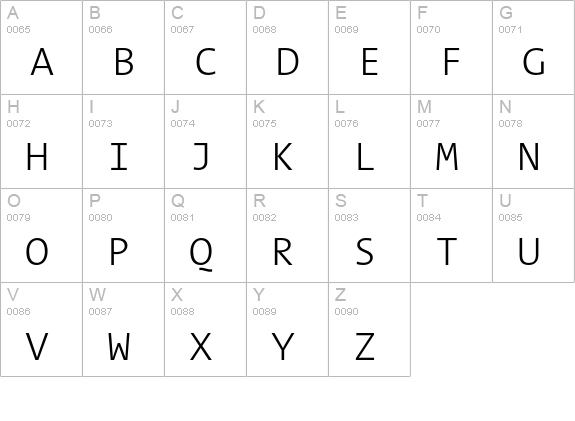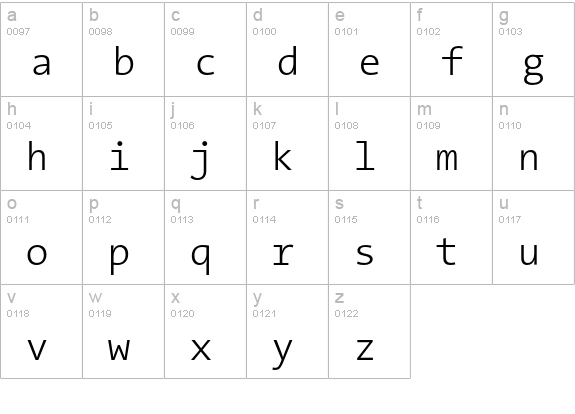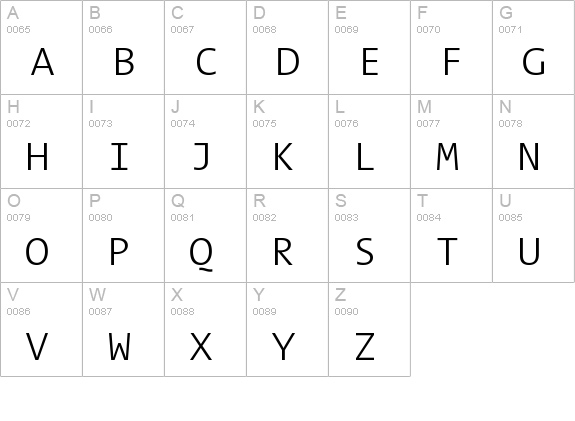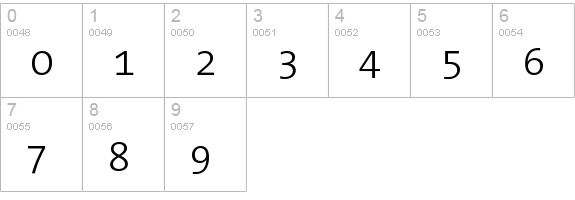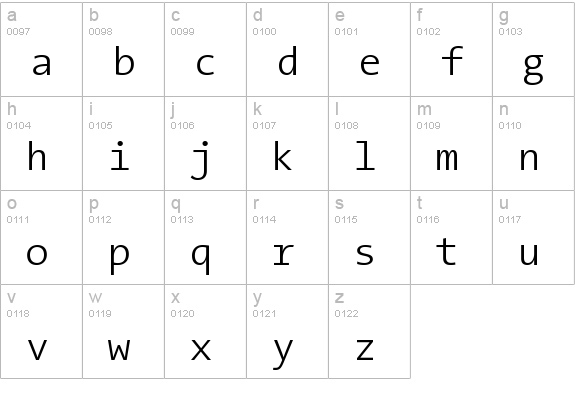
TheSansMono Light is a refined, elegant variant in the TheSansMono typeface family \xE2\x80\x94 well suited to elegant body text, refined sub-headings, and luxury branding.
TheSansMono Light font is a versatile and elegant typeface that exudes a sense of clarity and sophistication. With its clean and minimalistic design, this font is perfect for a wide range of applications, from coding and programming to graphic design and typography. TheSansMono Light font offers a harmonious balance between legibility and style, making it easy on the eyes while still maintaining a distinctive aesthetic appeal. Its sleek and slender letterforms create a modern and refined look, making it a popular choice among designers and developers alike. One of the best things about TheSansMono Light font is that it is free! That's right, you can freely download this amazing font at FontsMarket.com. With its availability as a free download, you can enhance your creative projects without having to worry about any financial constraints. Whether you're working on a personal project or a professional assignment, TheSansMono Light font provides the versatility and flexibility you need. Its clean lines and clear spacing make it ideal for displaying code snippets, creating stylish logos, or designing eye-catching headlines. So why wait? Experience the elegance and functionality of TheSansMono Light font today by downloading it for free at FontsMarket.com. Unleash your creativity and elevate your designs with this exceptional typeface that will surely make a lasting impression.